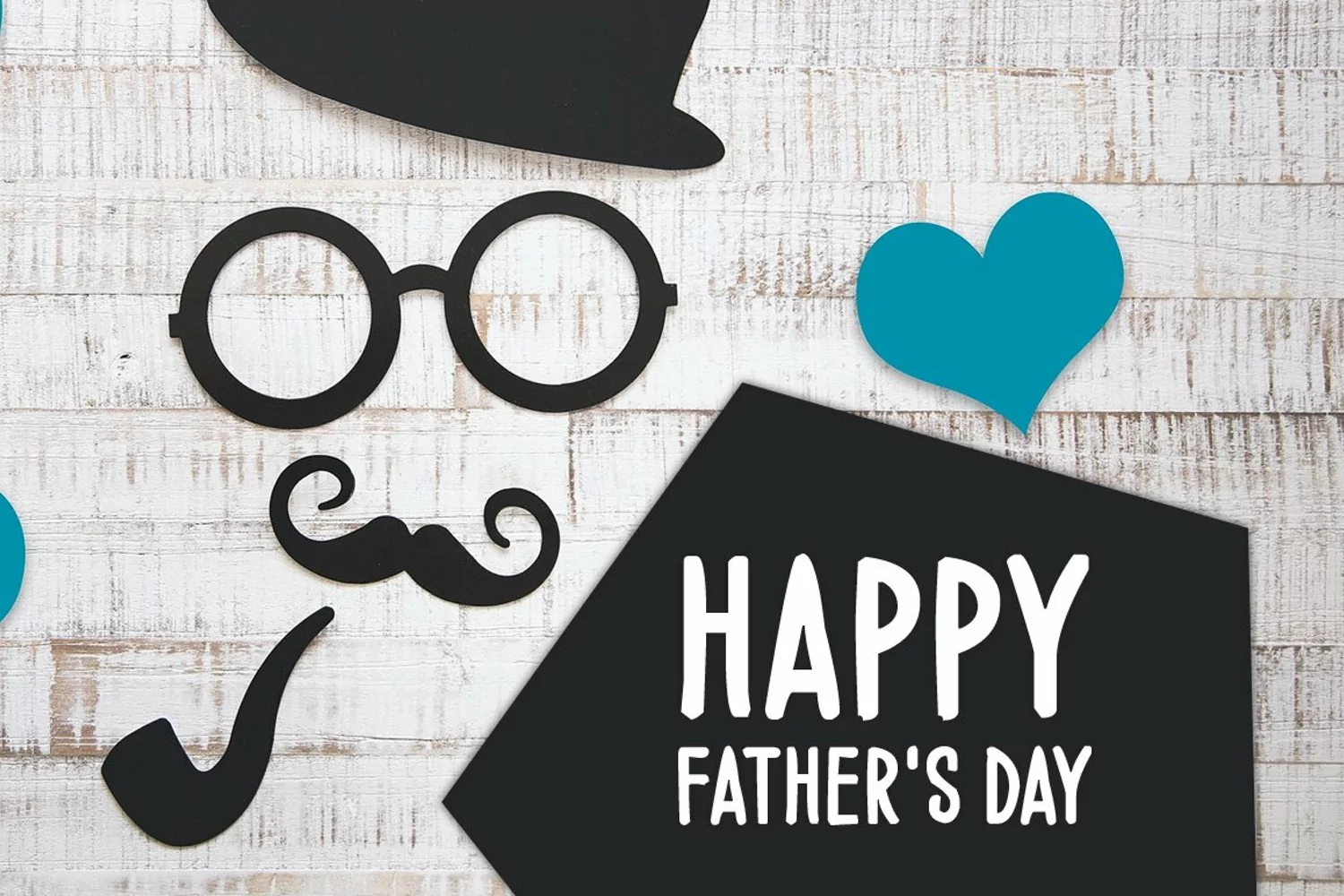
Introducing Father!
Father is a brand new handwritten font. Father is perfectly suited for stationery, logos, t-shirt, paper, print design, website header, photo frame, flyer, music cover, poster, image slider, and much more.